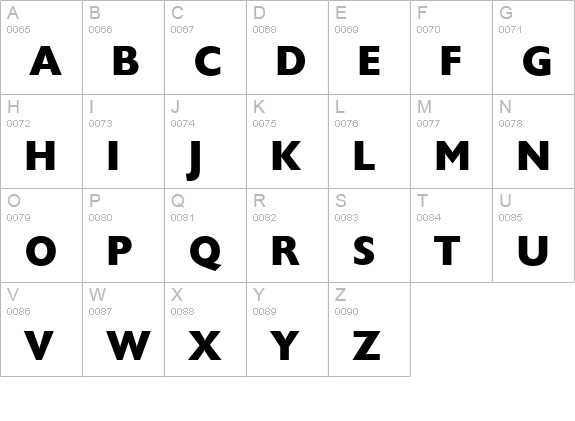
ChantillySerial-Xbold-Regular is the standard, neutral variant in the ChantillySerial typeface family \xE2\x80\x94 well suited to general body text, paragraphs, and standard typographic work.
ChantillySerial-Xbold-Regular font is a modern and stylish typeface that exudes sophistication and elegance. Its bold and eye-catching design makes it perfect for headlines, titles, and branding projects. The clean lines and sharp edges of this font give it a contemporary and sleek look that will make your designs stand out. The best part? ChantillySerial-Xbold-Regular font is available for free download at FontsMarket.com. That's right, you can get your hands on this stunning font without having to spend a penny. Whether you're a designer looking to add a new font to your collection or a business owner in need of a fresh look for your marketing materials, ChantillySerial-Xbold-Regular font is the perfect choice. Don't miss out on this fantastic opportunity to enhance your designs with the beauty and versatility of ChantillySerial-Xbold-Regular font. Download it today and take your projects to the next level!